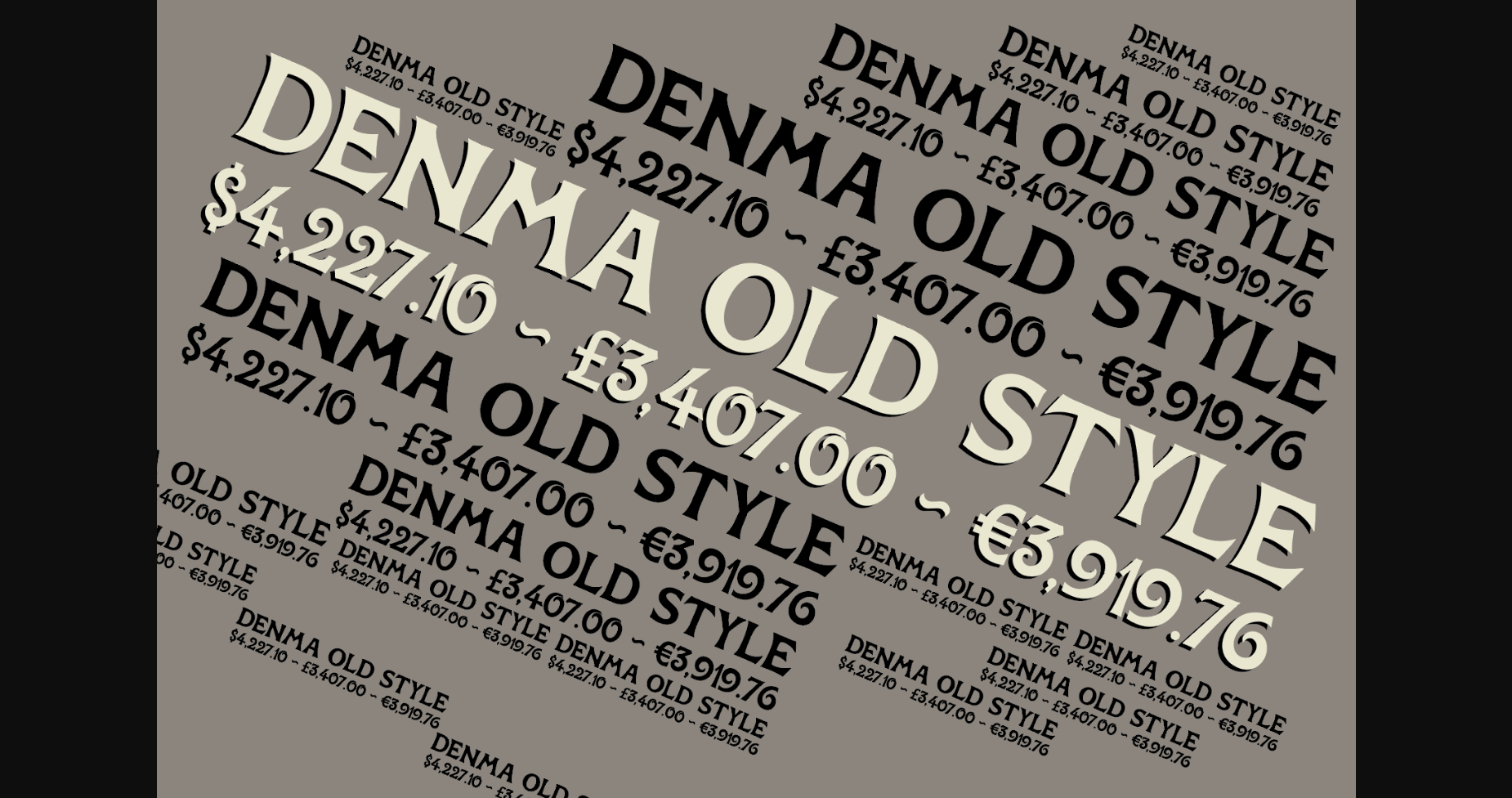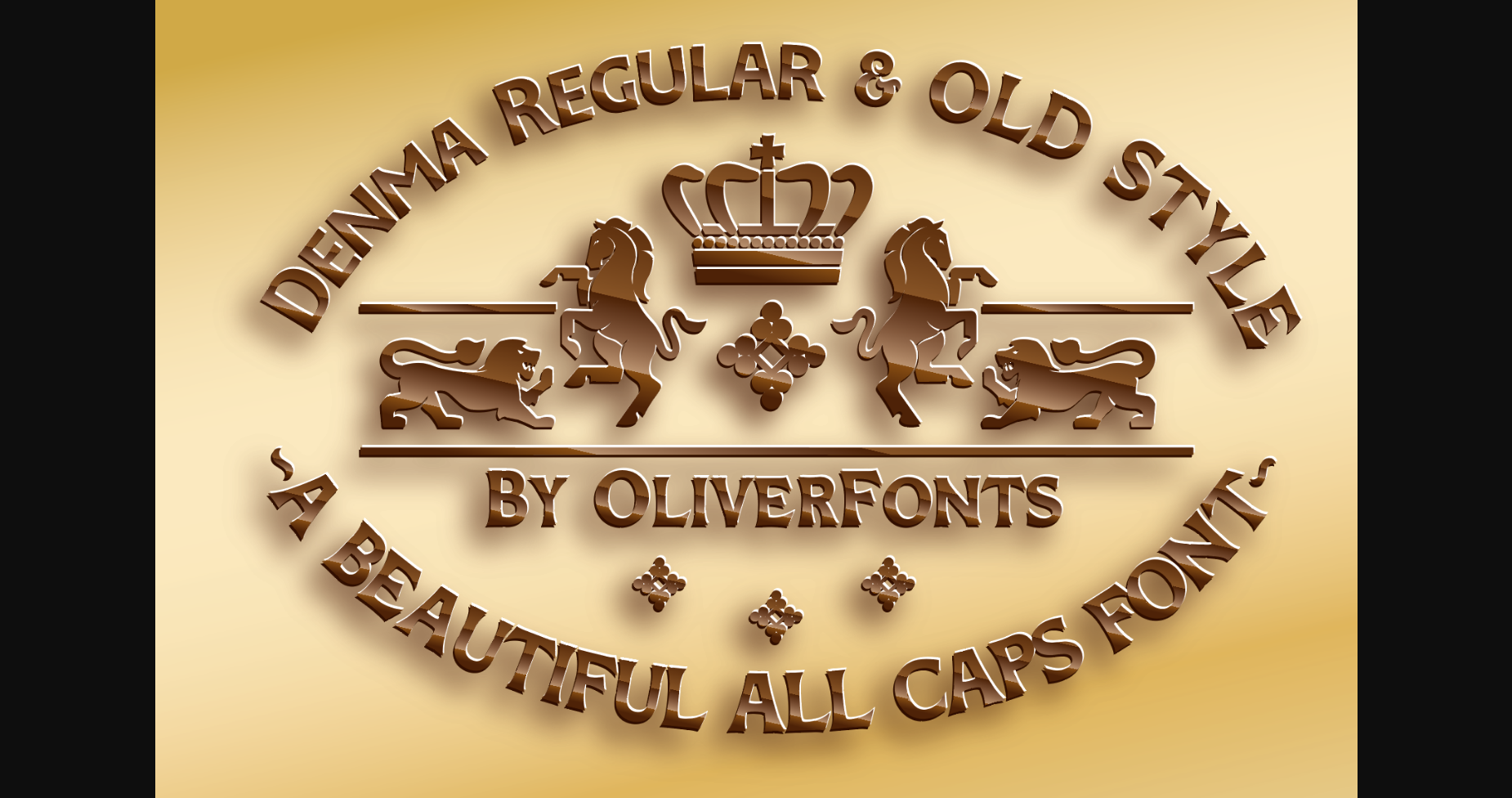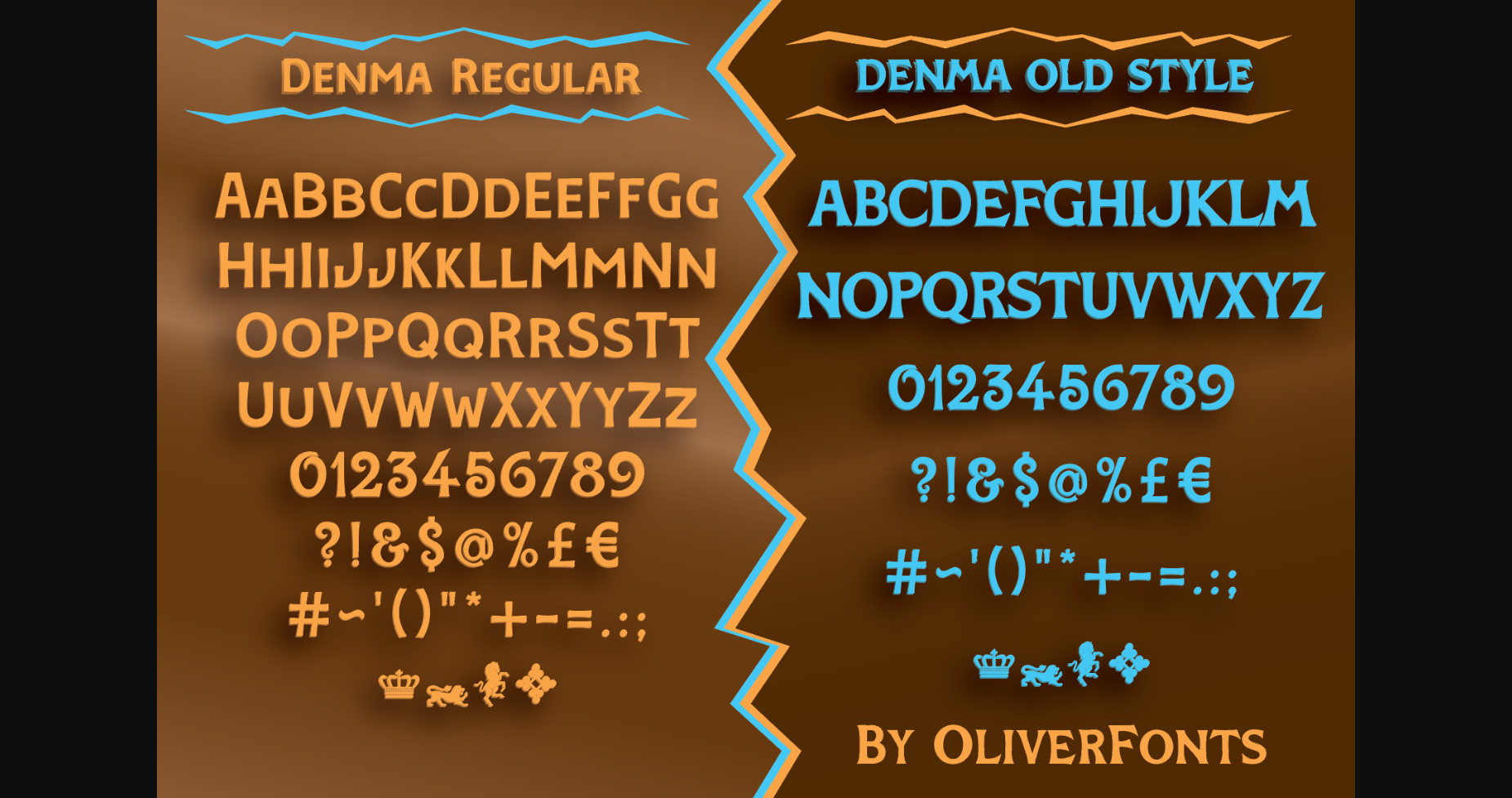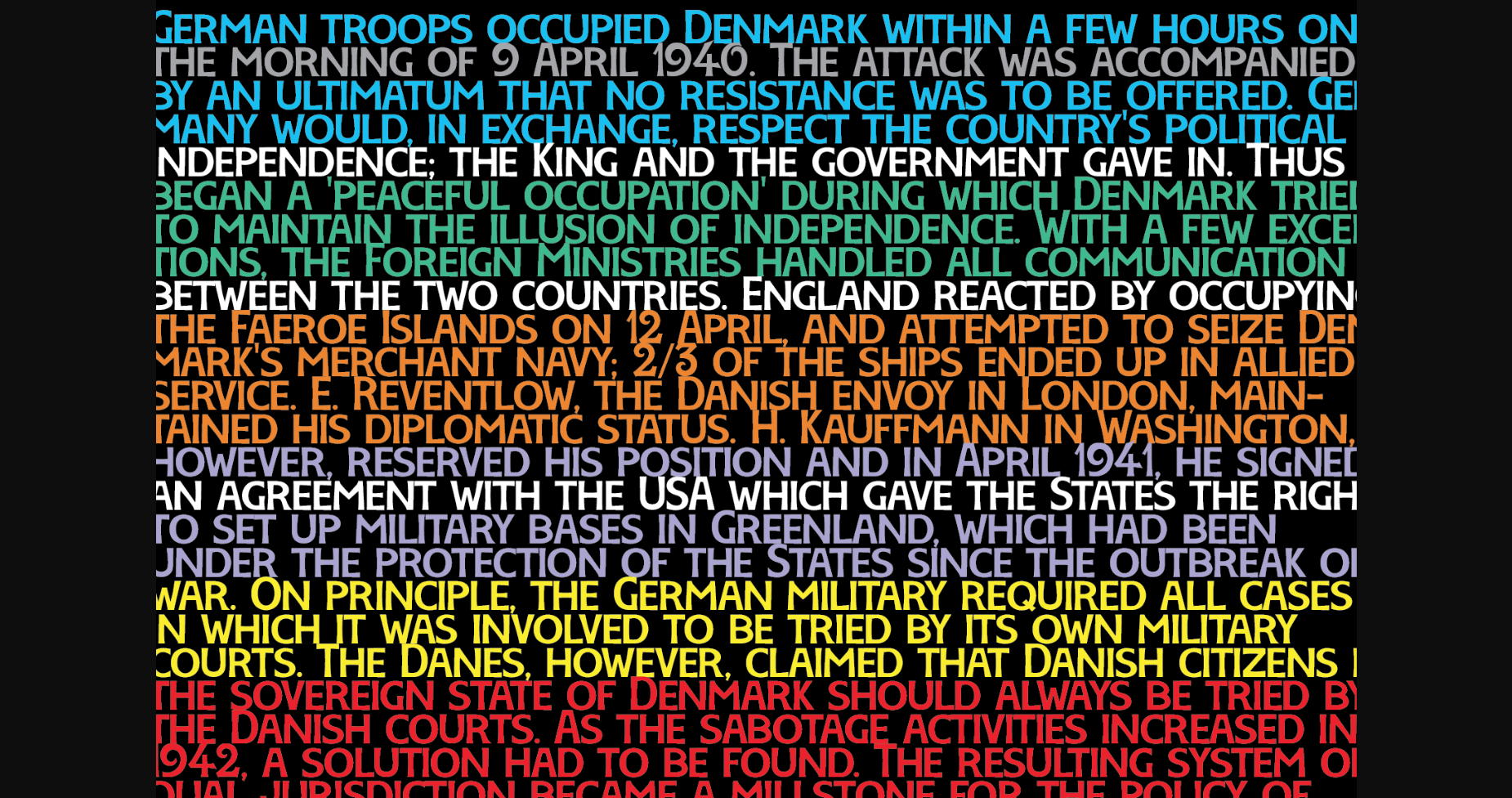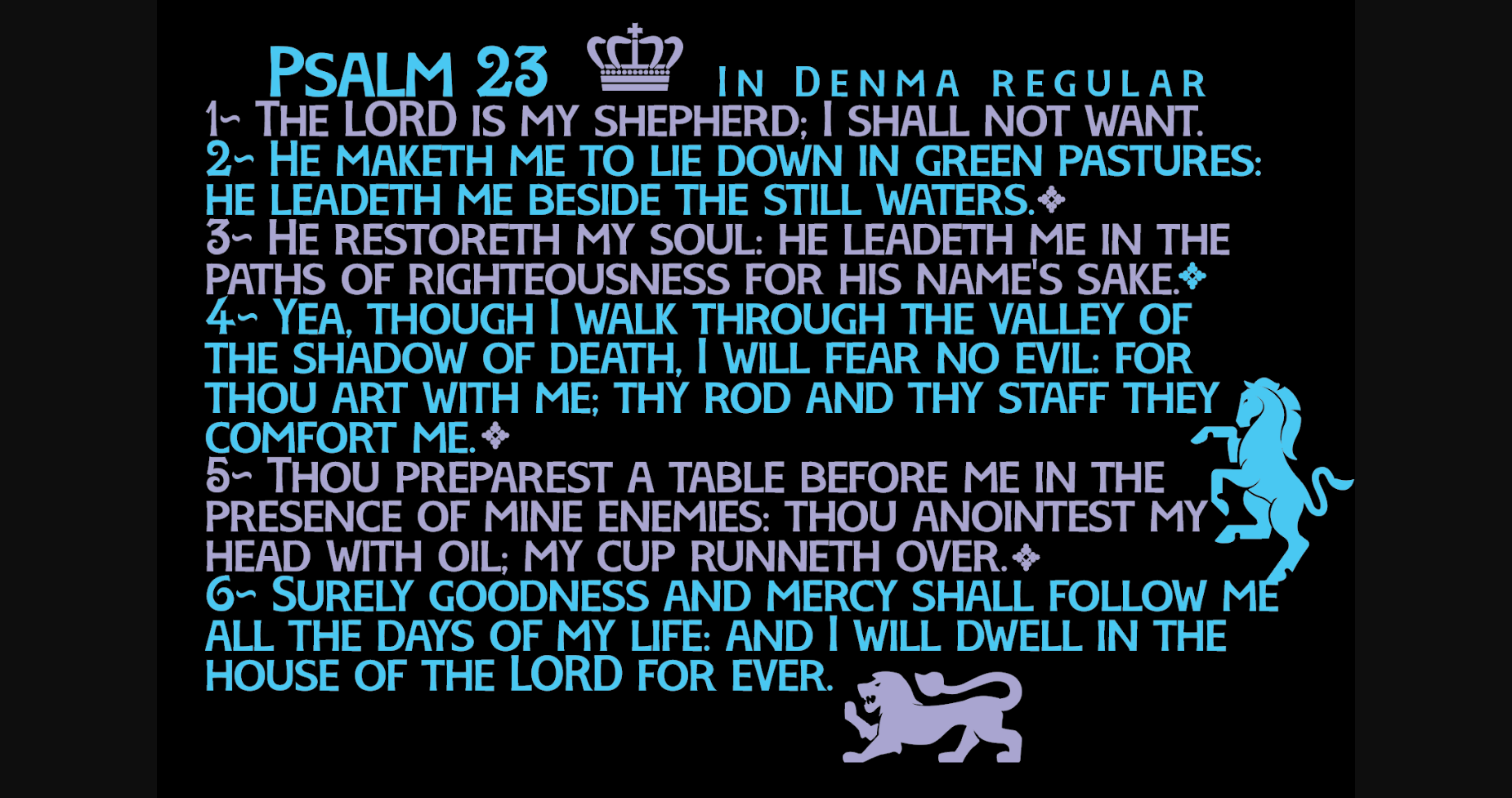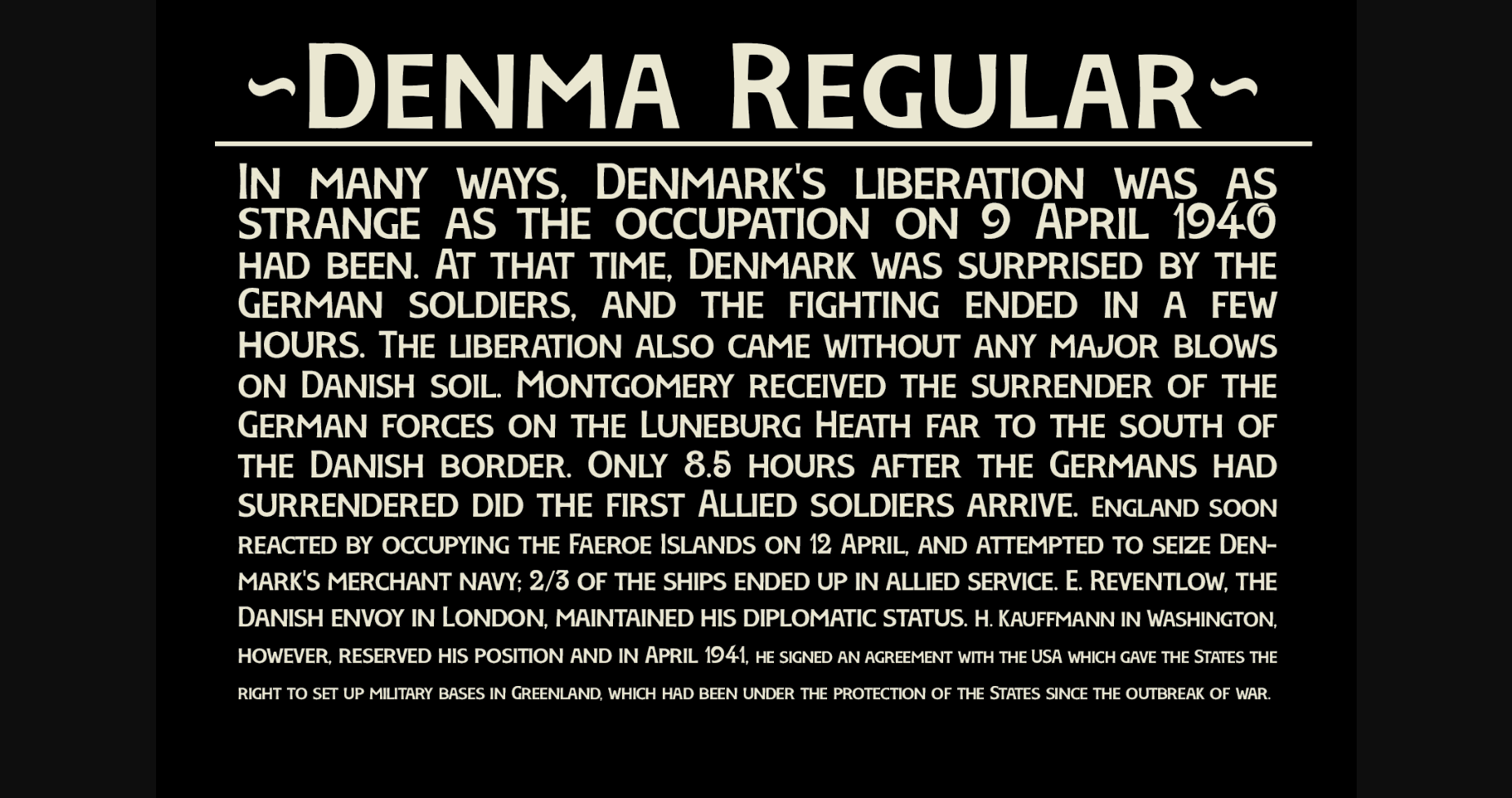
Denma Font
About Denma Font
DENMA REGULAR and DENMA OLD STYLE take you back to an era of typeface beauty and grace yet is a font unique enough to carry your next project over the line in noticeability and creative elegance.